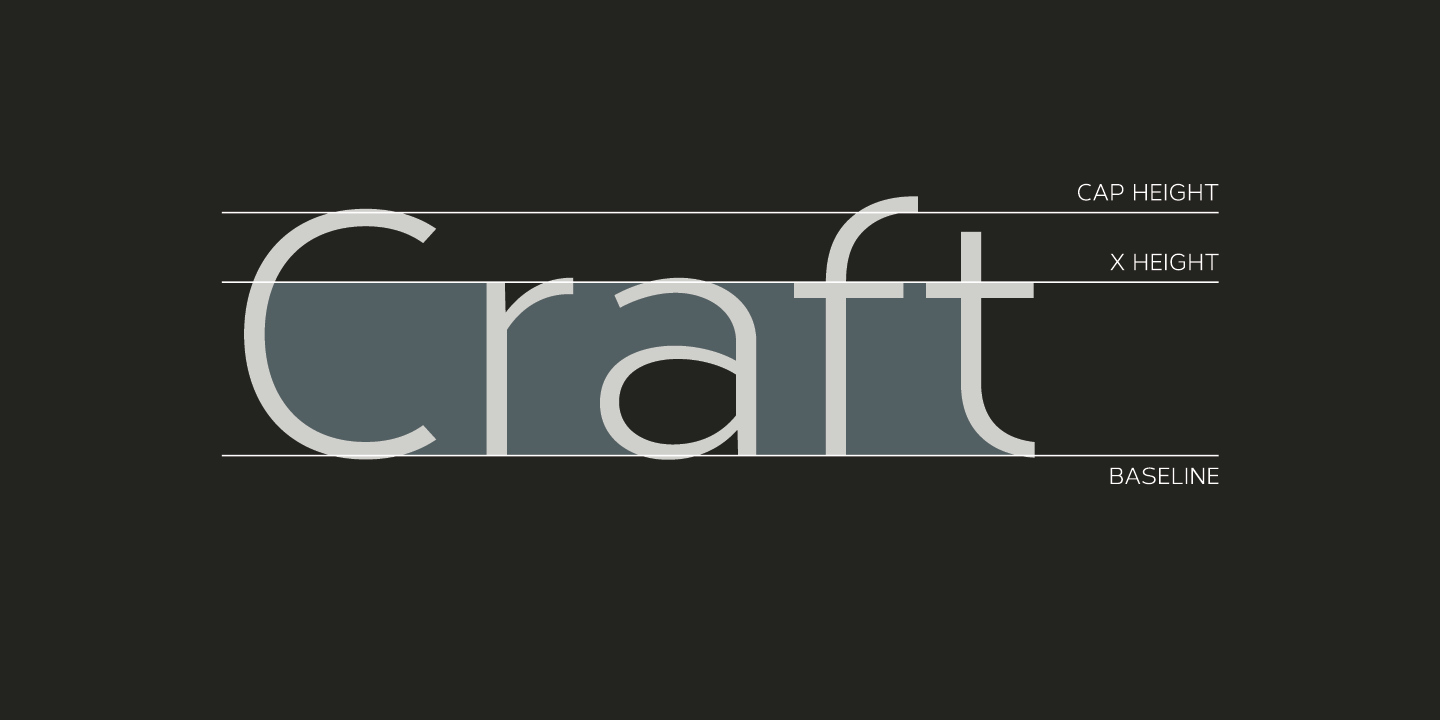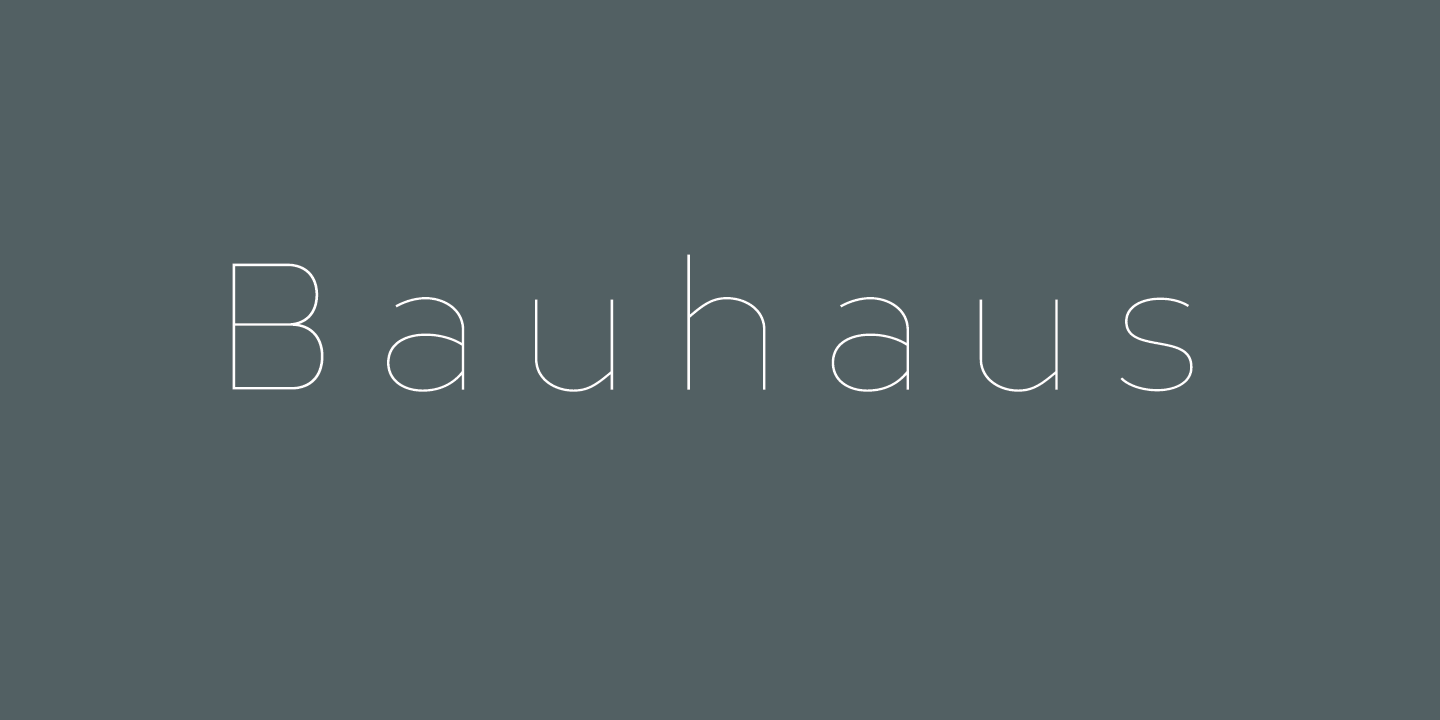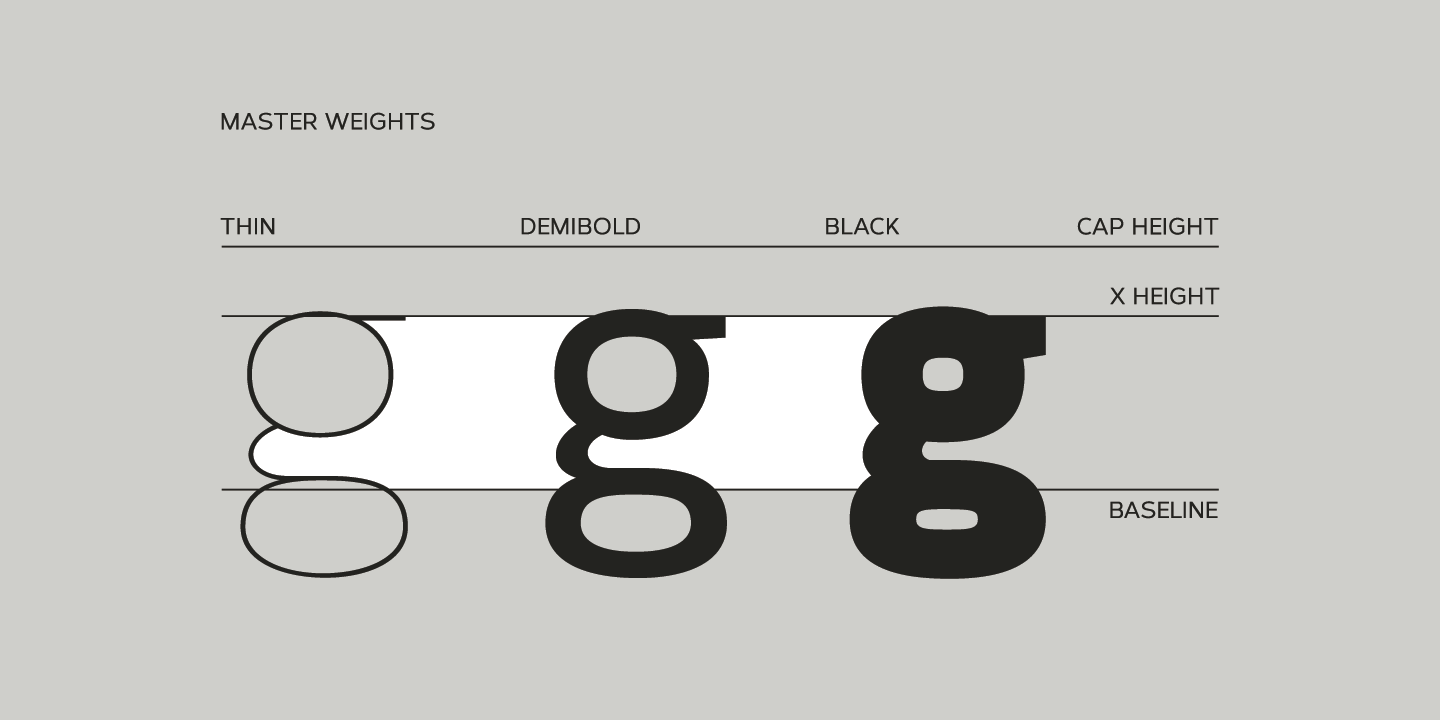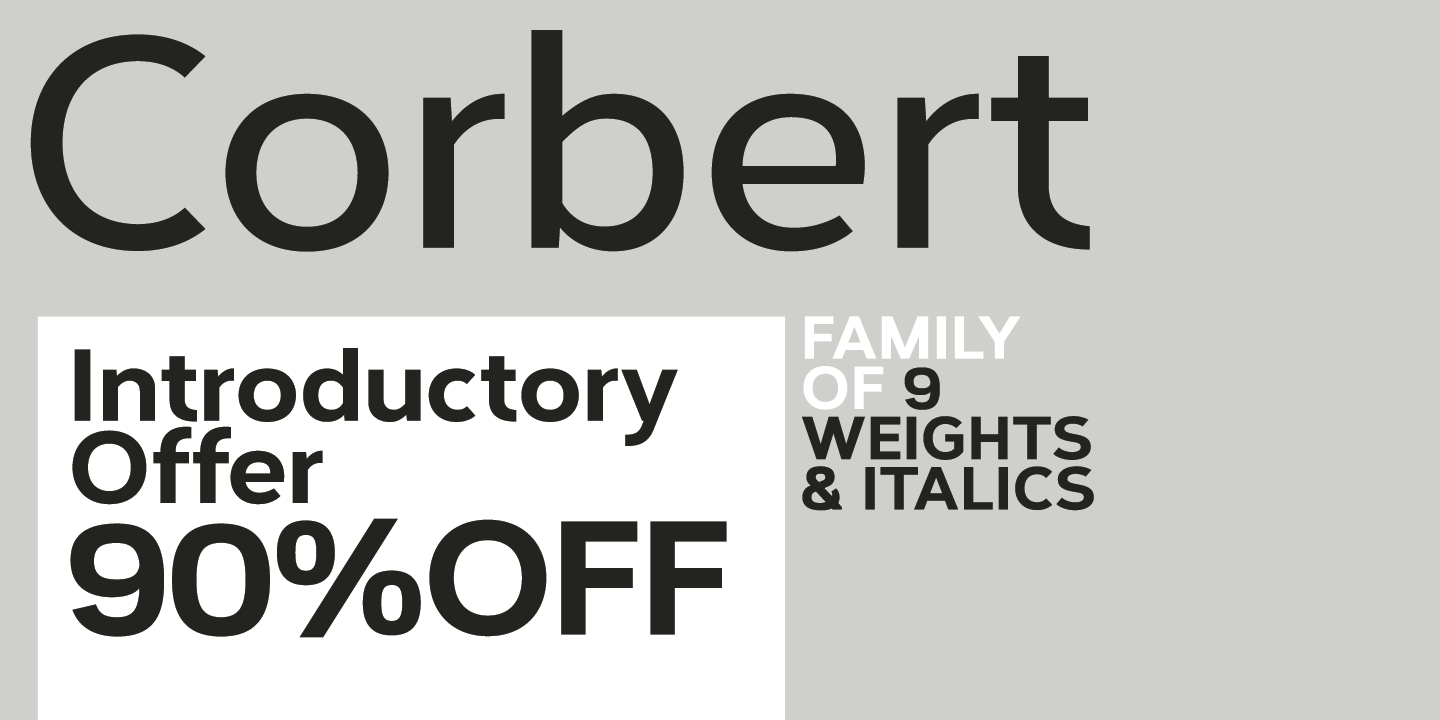
Discovering the Perfect Typeface: A Journey to the Corbert Family Font
Have you ever found yourself in a creative rut, staring blankly at a blank canvas or screen, desperate for the perfect font to bring your design to life? It’s a moment we’ve all been there, and it’s precisely this kind of frustration that drives designers to seek out the perfect typeface.
Enter the Corbert Family Font, a stunning geometric sans serif typeface that embodies the spirit of Bauhaus and early modernism. This beautifully crafted font boasts 540 characters, including alternative lowercase a, e, and g, five variations of numerals, and meticulously edited kerning – all designed to create a clear and natural reading experience. Whether you’re a seasoned designer or just starting out, the Corbert Family Font is an invaluable tool that’s sure to elevate your designs to the next level.
Corbert Family Font Key Features
- Font Family: Corbert Family Font includes 6 styles: Corbert Light, Corbert Regular, Corbert Italic, Corbert Bold, Corbert Bold Italic, and Corbert Outline.
- Unique Characteristics: Corbert Family Font features a unique blend of modern and vintage elements, with a focus on elegance and sophistication.
Corbert Family Font Review
Overall, I’d say the Corbert Family Font is a solid choice for designers looking for a classic, elegant feel. ✨ It’s got a timeless quality that’s hard to resist, and the weight options provide plenty of flexibility for different applications.
The font’s subtle flair and rounded edges make it suitable for a wide range of projects, from invitations to branding materials. ✨ The high-quality vector files ensure crisp, clean lines that will print beautifully.
One area where the Corbert Family Font falls short is its limited language support. ⚠️ Unless you’re working primarily with English, you may encounter issues with character mapping and compatibility.
Additionally, the font’s condensed weight options can sometimes appear too condensed, making it difficult to read in certain contexts. ⚠️ This may require some extra attention when designing layouts to ensure the text remains legible.
Despite its limitations, I still think the Corbert Family Font is a great addition to any designer’s toolkit. With its elegant feel and versatility, it’s an excellent choice for a wide range of projects. Just be mindful of the language support and condensed weight options, and you’ll be golden.
Design Considerations
- Use the Corbert Family Font for projects that require a classic, elegant feel.
Tips for Getting the Most Out of the Corbert Family Font
For optimal results, pair the Corbert Family Font with bold and italic fonts for emphasis. Use it for headings and titles to create a professional look. Experiment with different font sizes and styles to add visual interest to your designs.
The Corbert Family Font is ideal for corporate branding, marketing materials, and editorial content. It’s also suitable for use in wedding invitations, event programs, and other formal documents where a classic, elegant look is desired.